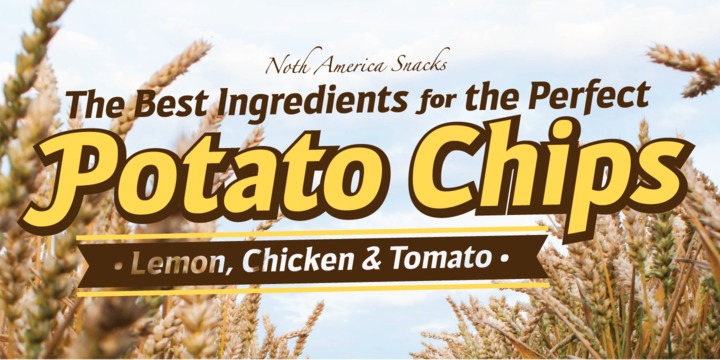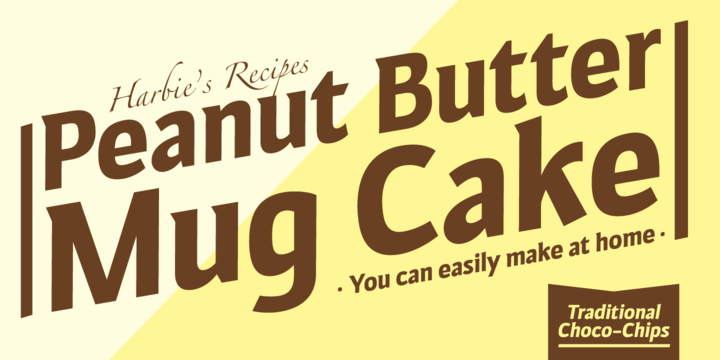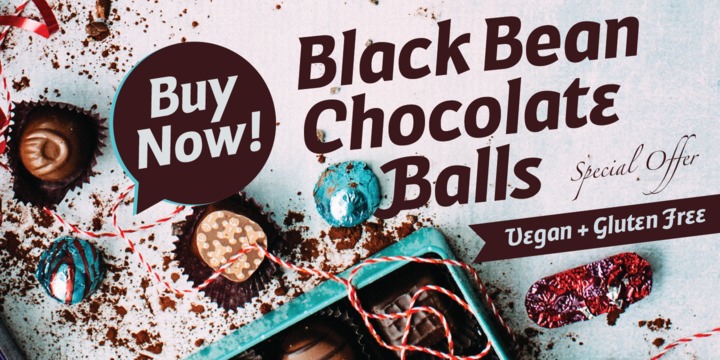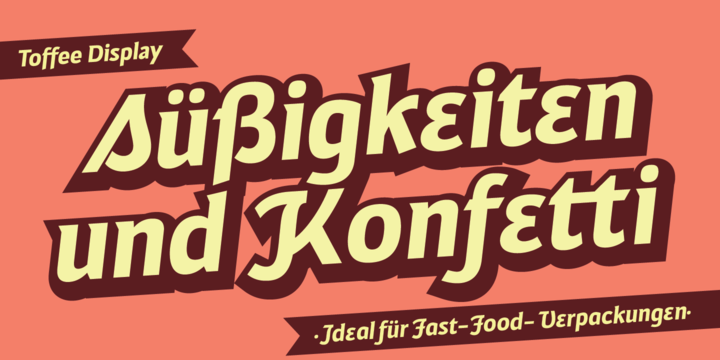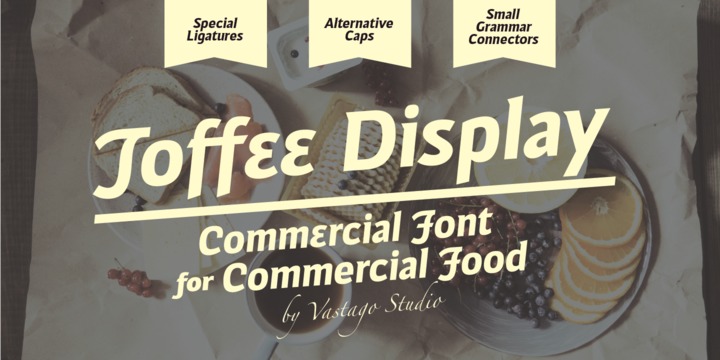
Toffee Display is a sans serif project inspired on Gill sans, Helvetica and Eurotstile italics.
This project is designed for food packaging, candies, commercial, and fast food.
I recommend combining it with a light and calligraphy font to get absolute contrast.